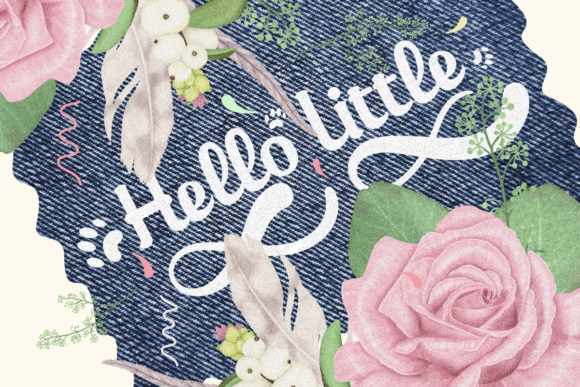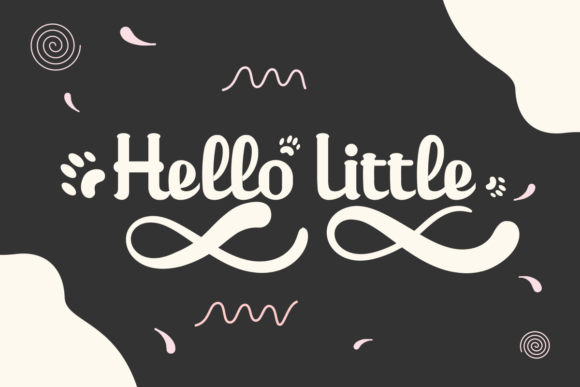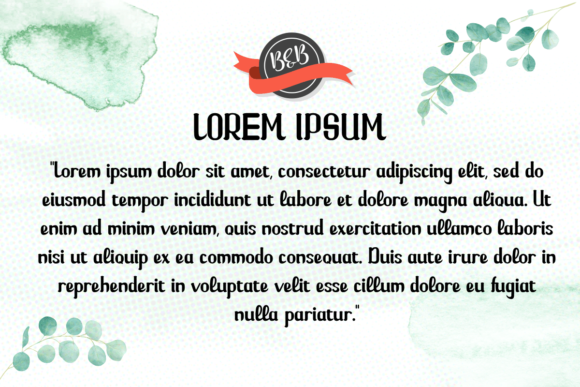
Introduction to Hello Little Tiger Font
Hello Little Tiger is an incredibly distinct and timeless handwritten font.
Key Features of Hello Little Tiger Font
Why Choose Hello Little Tiger Font?